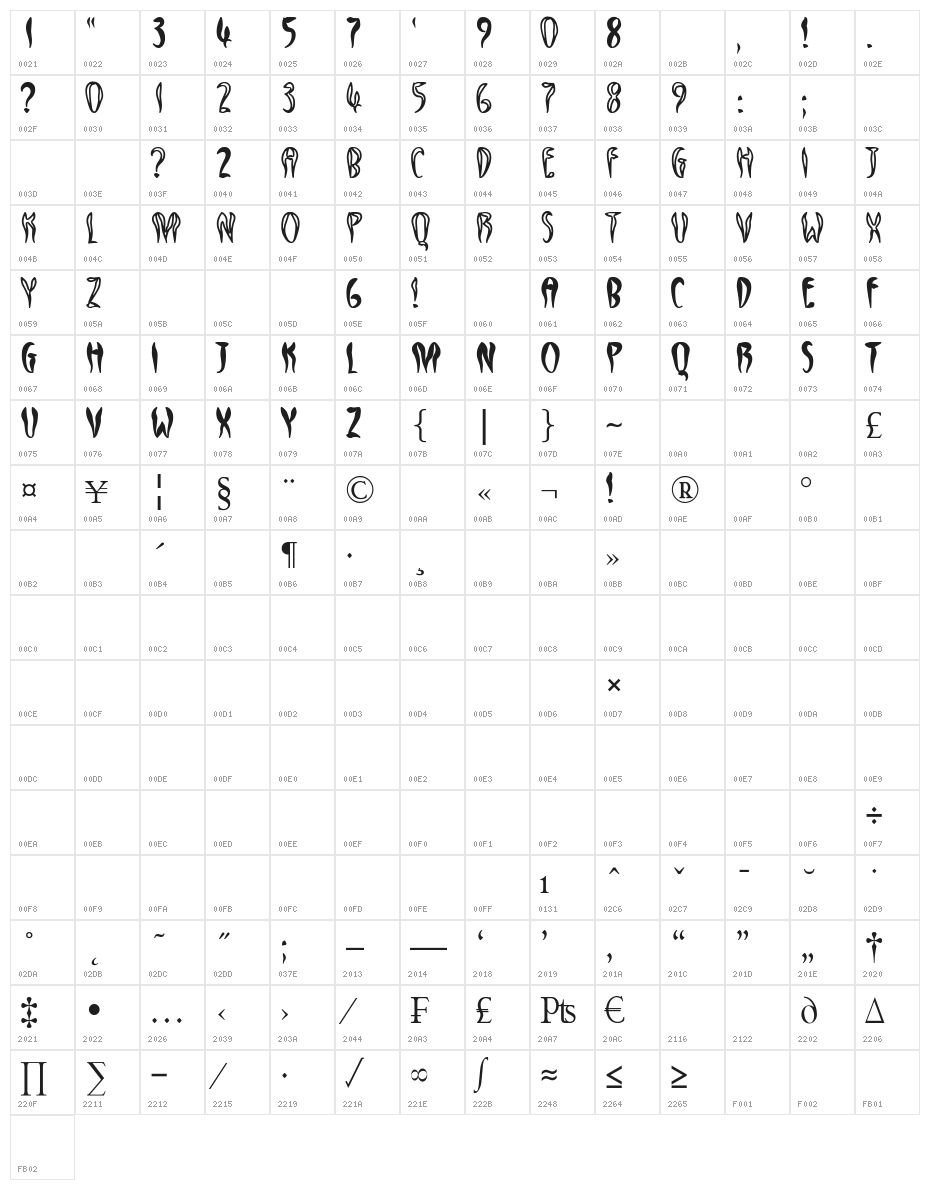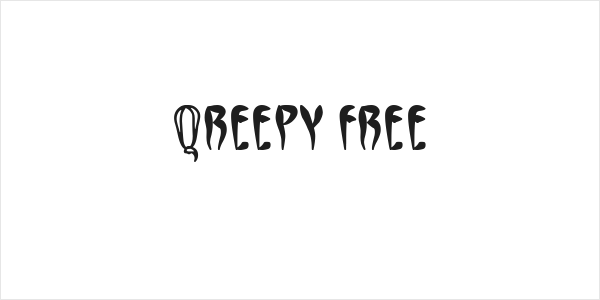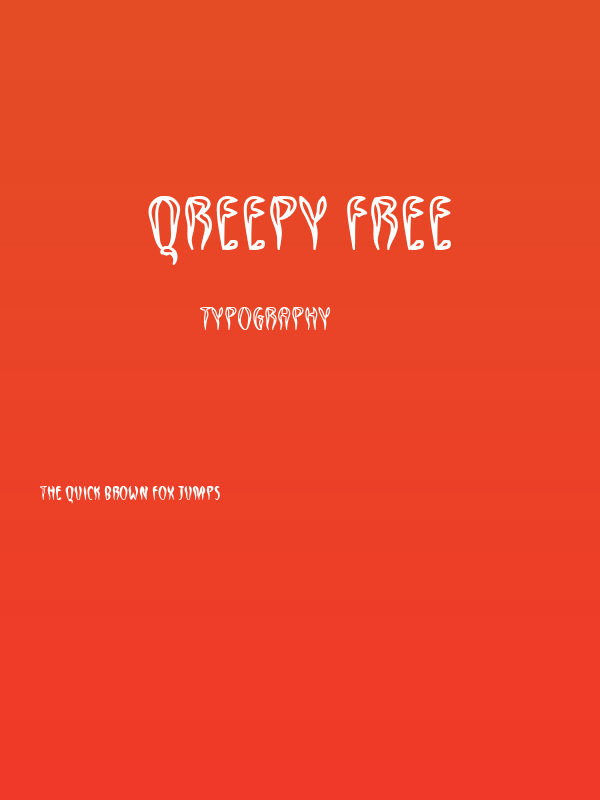
Qreepy free Font
Qreepy free Description
This font features a unique and eerie design, characterized by elongated and irregular strokes that give it a spooky, haunted appearance. The letters are bold and slightly distorted, with sharp edges and varying thickness that create a sense of movement and unease. The uppercase and lowercase letters maintain a consistent style, enhancing the overall unsettling aesthetic. Numbers and special characters are equally stylized, contributing to the font's cohesive and distinctive look. This font is perfect for projects that require a touch of horror or mystery, such as Halloween-themed designs or horror movie posters.
| Proposed Projects | Ideal for Halloween invitations, horror movie posters, haunted house flyers, and spooky-themed merchandise. |